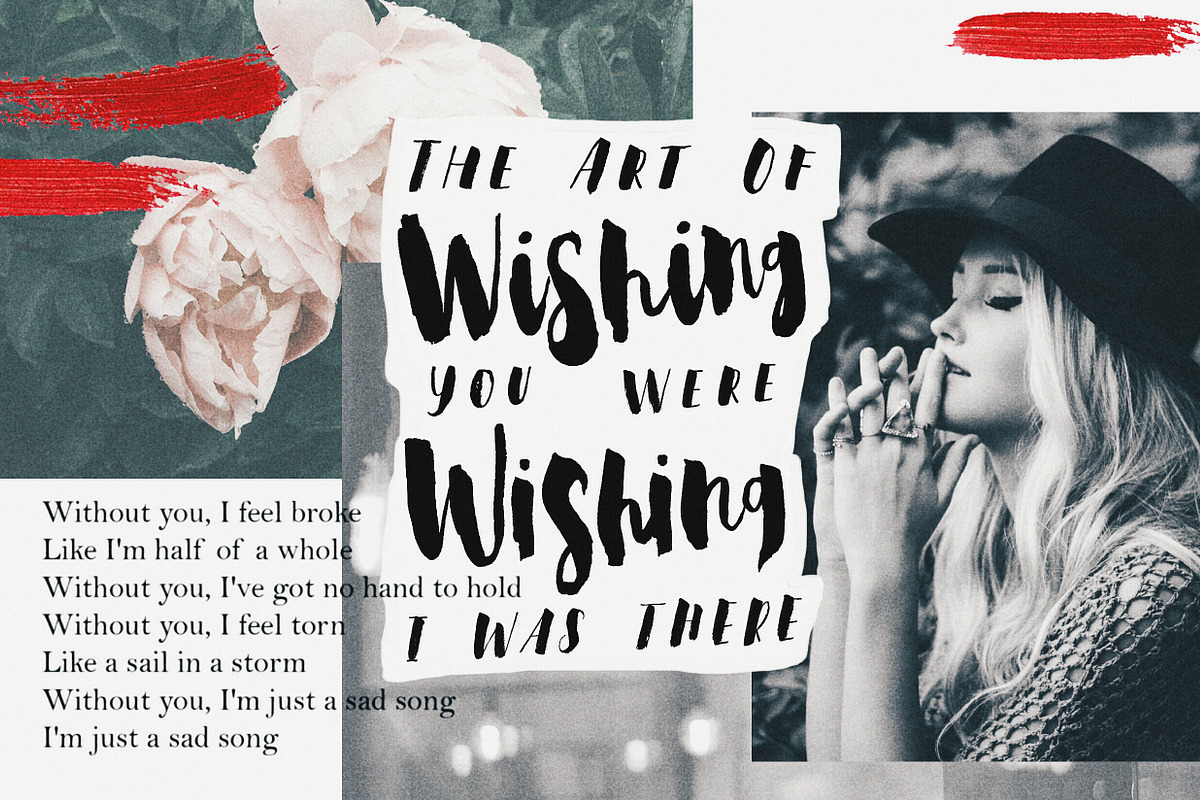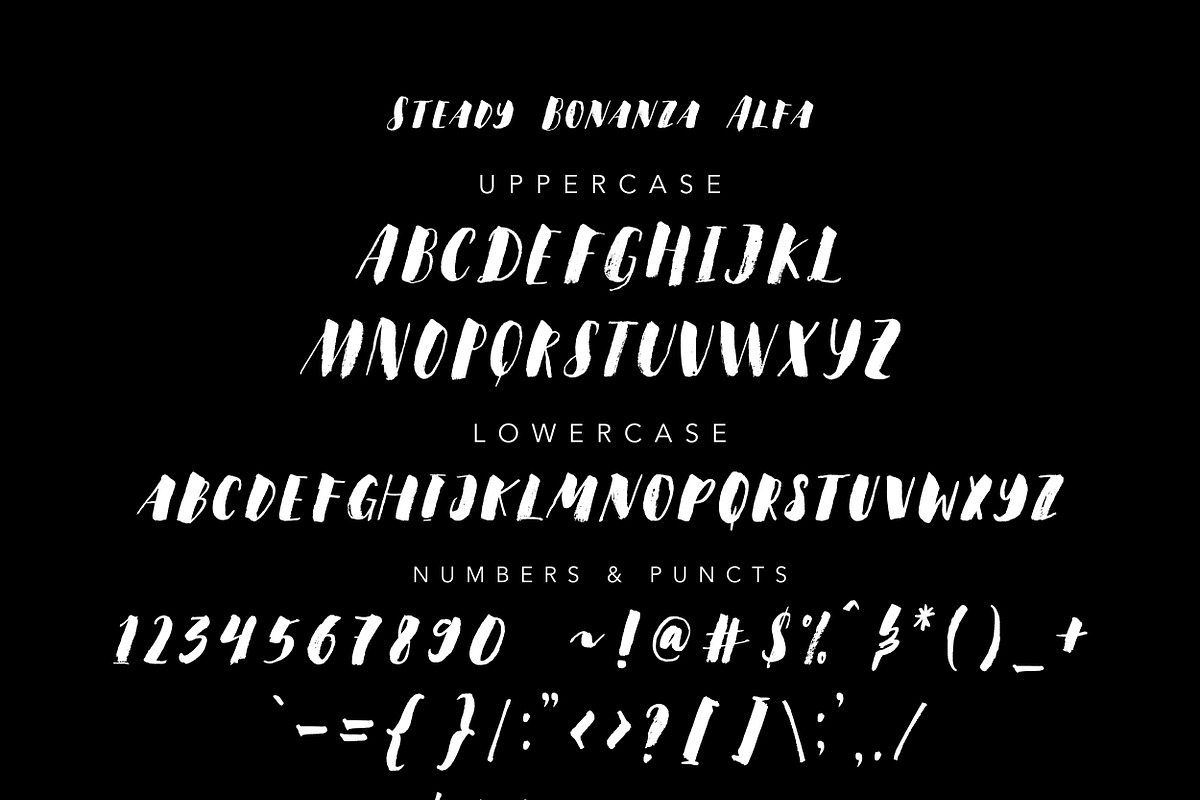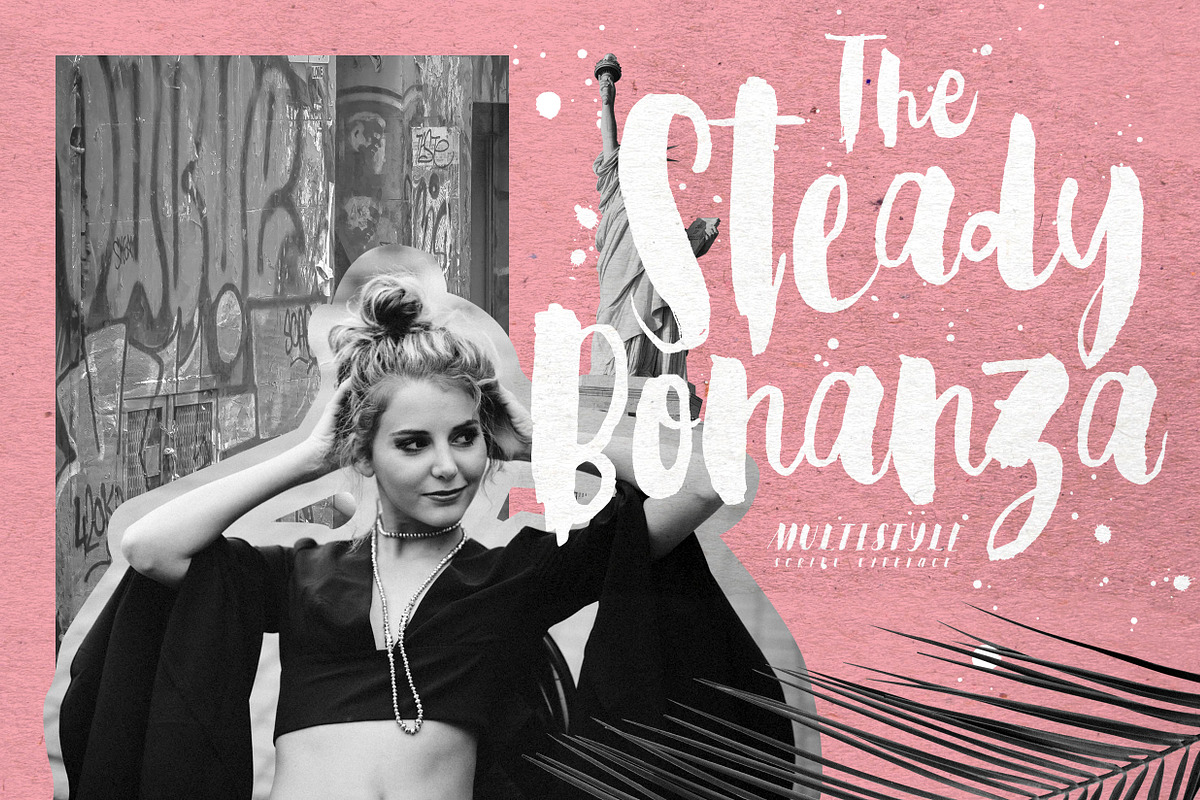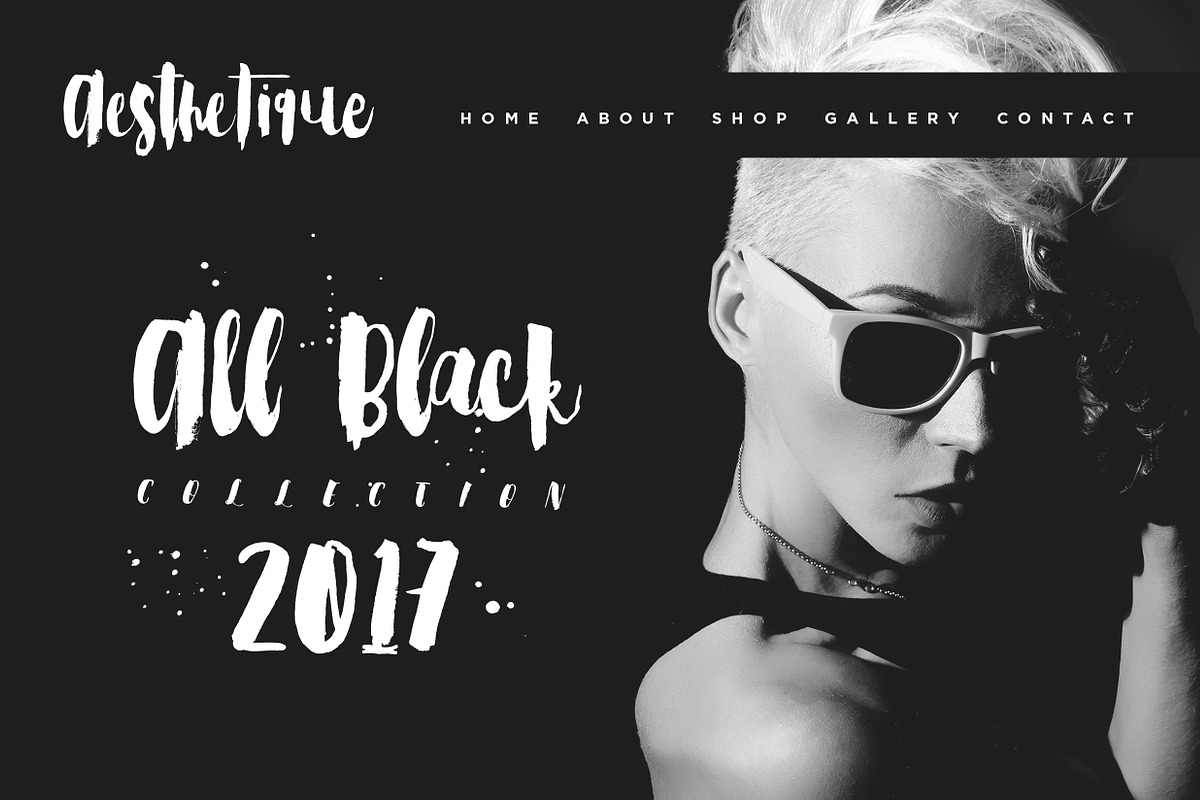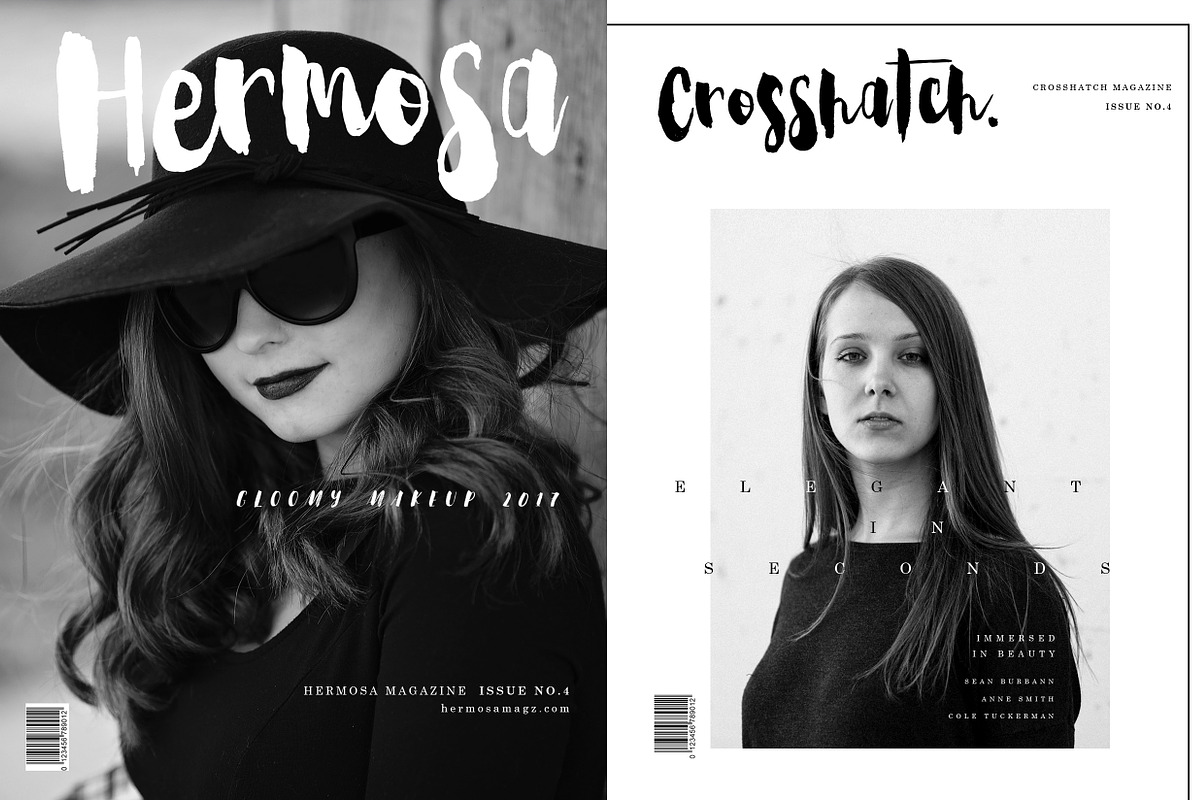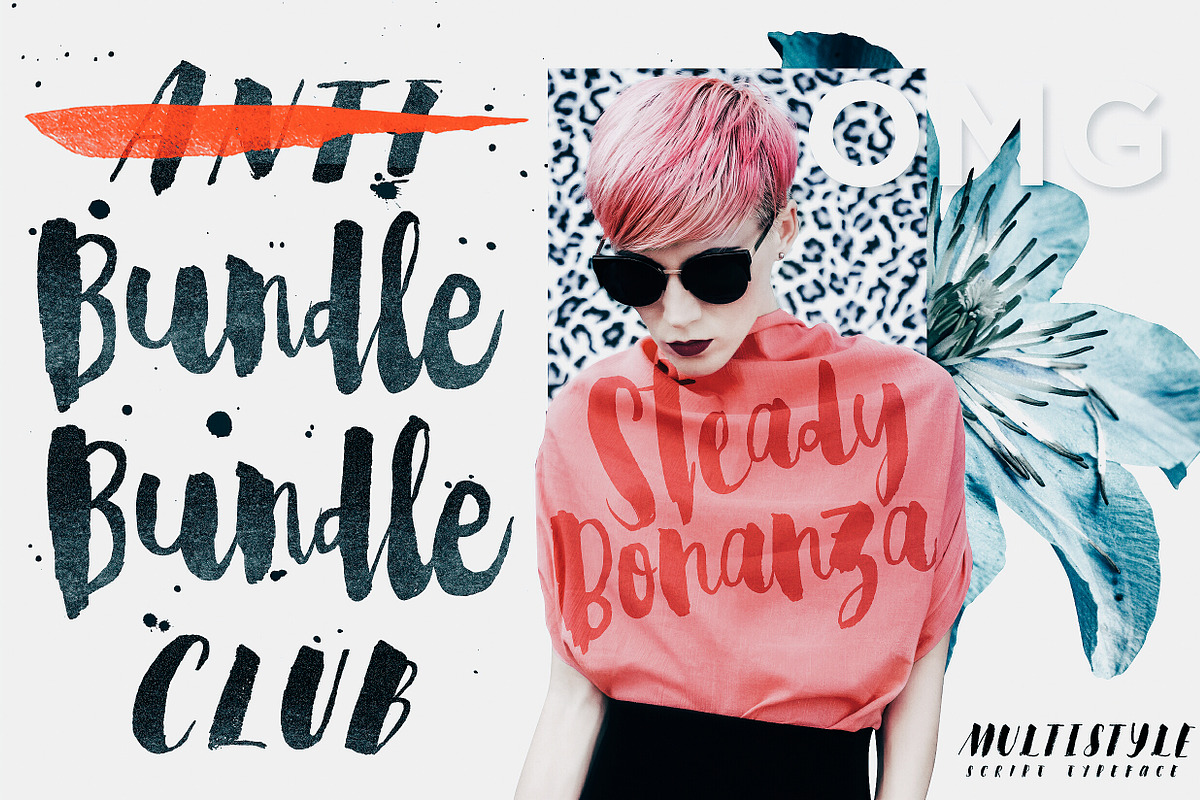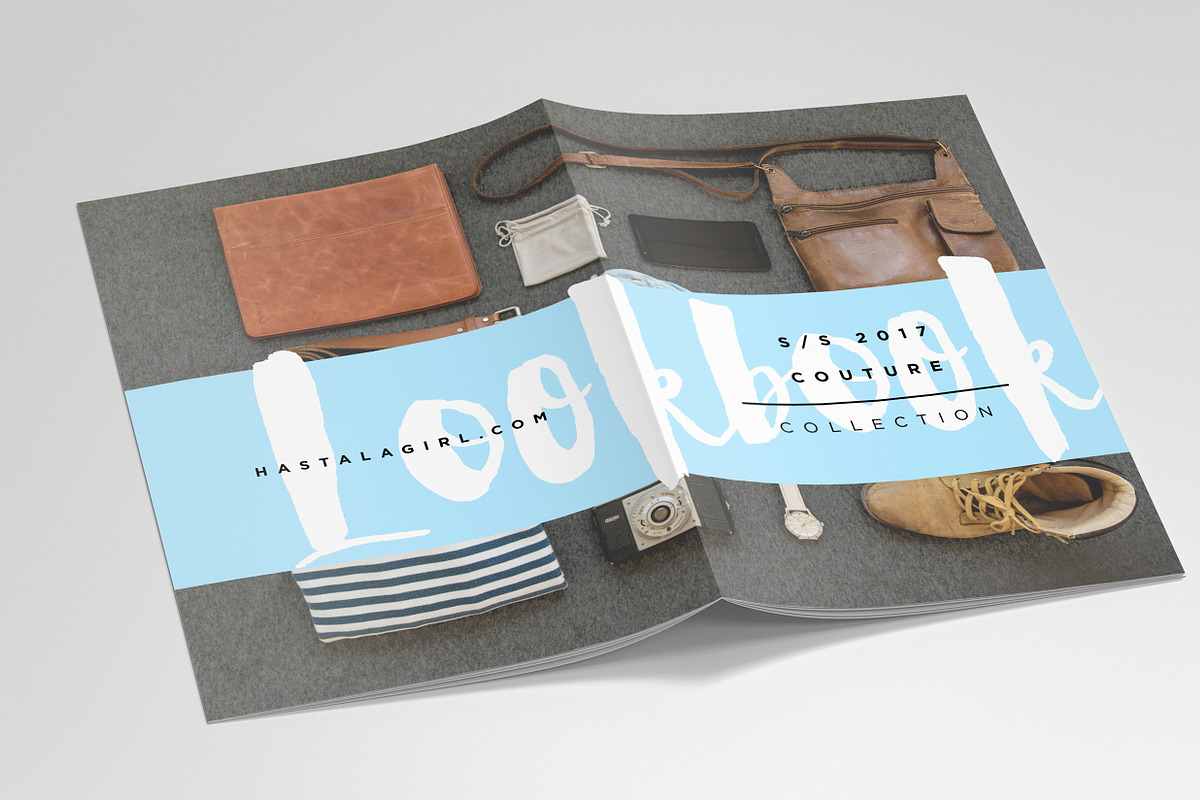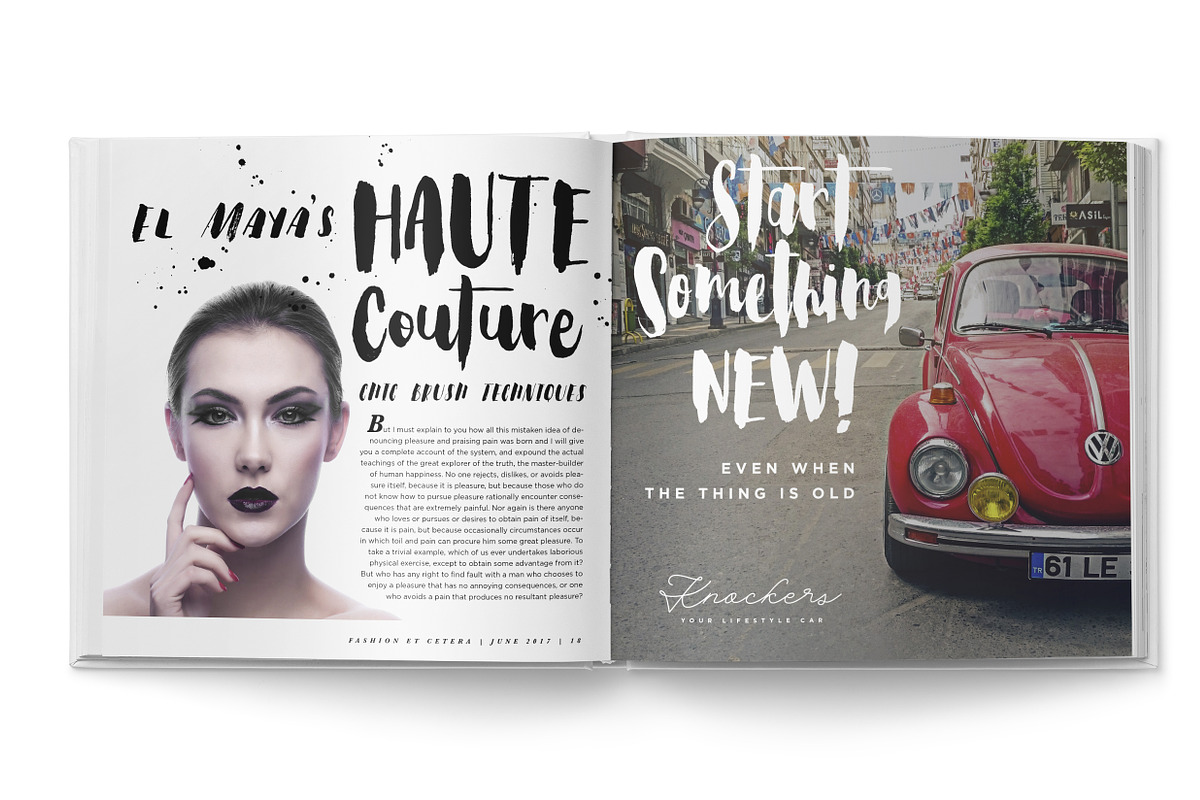
Steady Bonanza Multistyle Fonts
Steady Bonanza Multistyle Fonts by Ian Irwanwismoyo is a font selected for branding, posters, packaging, typography.
- C O N T E N T S Steady Bonanza Alfa : An all-caps handwritten brush script font with thick and thin style and wide negative space, contains
- contains uppercase, lowercase, numbers, punctuations, multilanguage support and ligature for double letters too on it, yes i copy-paste the
- C O N T E N T S Steady Bonanza Alfa : An all-caps handwritten brush script font with thick and thin style and wide negative space, contains
- contains uppercase, lowercase, numbers, punctuations, multilanguage support and ligature for double letters too on it, yes i copy-paste the
- C O N T E N T S Steady Bonanza Alfa : An all-caps handwritten brush script font with thick and thin style and wide negative space, contains
- Steady Bonanza Bravo : A total different set from the Alfa one, i play with an lowercase style letters but in the same size as the other one
- Steady Bonanza Script : A bold and jaggy hand-lettered script typeface with a strong characters in it.
- contains uppercase, lowercase, numbers, punctuations, multilanguage support and ligature for double letters too on it, yes i copy-paste the
- Steady Bonanza Script Too : It takes part as an alternates for the one before, so you can mix the letters in every word just in case you wan
Why Steady Bonanza Multistyle Fonts is worth a look
Steady Bonanza Multistyle Fonts by Ian Irwanwismoyo fits naturally into Branding, posters, packaging, typography.